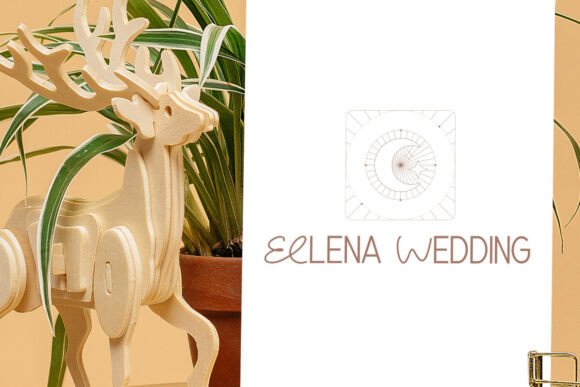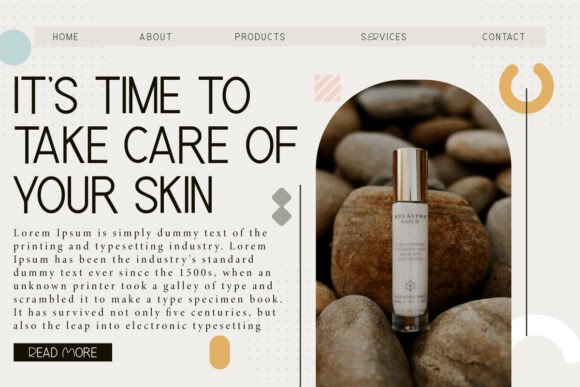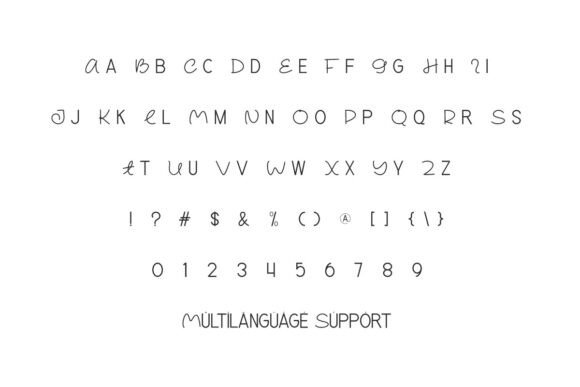
Bright Toon Font
Bright Toon Font is a fun and unique display font duo. The font has a combination of Minimalist Serif display and classy signature on its uppercases. This font consists of Script and Sans Serif font types, which both have a simple and elegant style. It will suit many designs, such as brand image, custom design, gift box, invitation, label, poster, product packaging, quote, signage, stationery, website, and more!